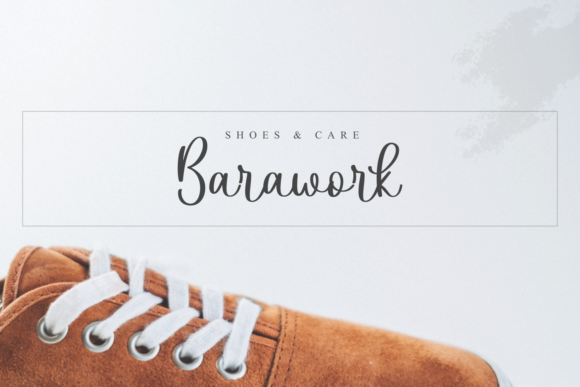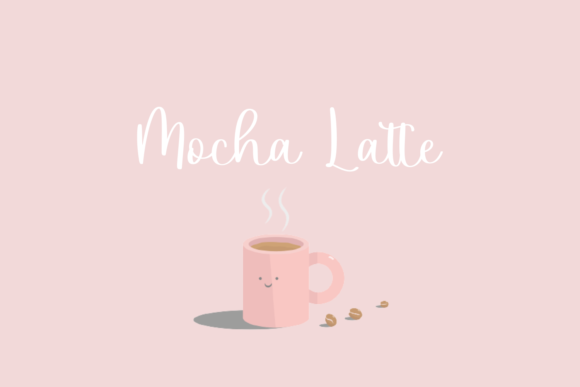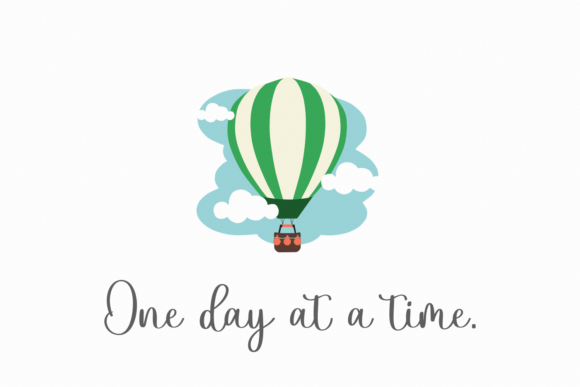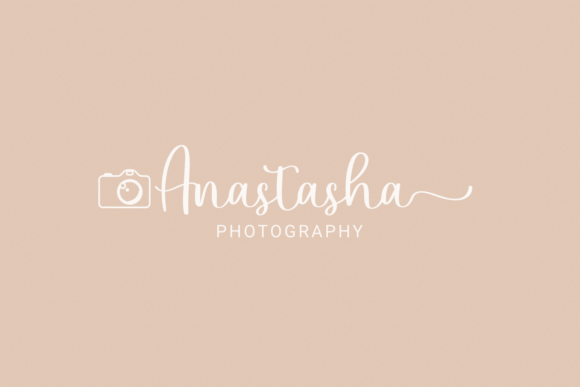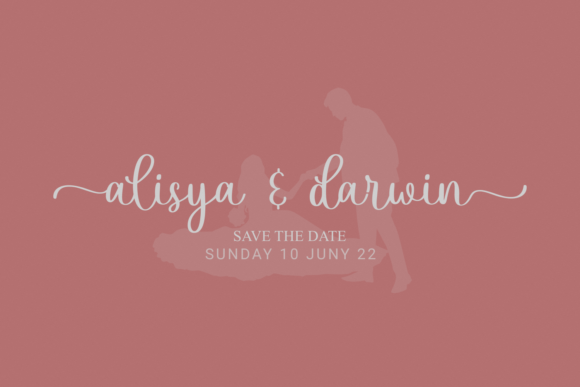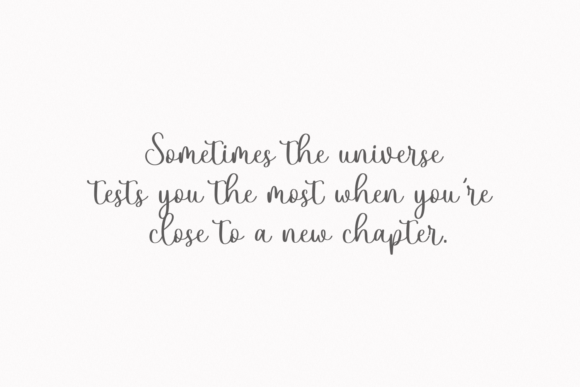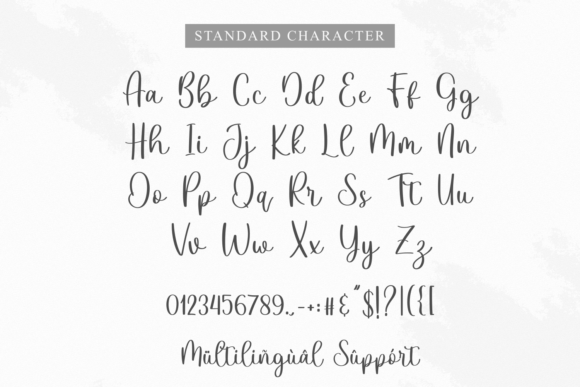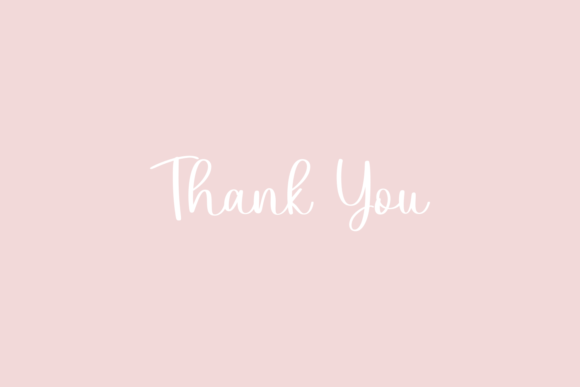
Graphy Font
About Graphy Font
Graphy is a charming and whimsical script font designed to bring sweetness and flow to your projects. With characters that gracefully dance along the baseline, this font infuses a touch of luxury, creating an enchanting and visually appealing experience for any design endeavor.
The sweet and whimsical qualities of Graphy make it an ideal choice for a variety of creative projects. Whether you are working on invitations, branding materials, or any design that requires a flowing script, Graphy adds a delightful and playful touch that captures attention. Its inherent elegance ensures that your text exudes a sense of sophistication while maintaining a sense of whimsy.
The flowing script of Graphy is a key feature that contributes to its unique charm. The characters seamlessly connect, creating a harmonious and fluid rhythm that enhances the overall beauty of the font. This flowing quality adds a dynamic and lively aspect to your text, making it visually engaging and captivating.
Graphy is not just a font; it’s a design tool that elevates your projects with a luxury spark. Whether you are creating invitations that radiate elegance or incorporating it into branding materials for a touch of sophistication, Graphy promises to deliver exceptional and memorable results.
In summary, Graphy is a script font that combines sweetness, whimsy, and a touch of luxury. Allow its characters to dance across your designs, infusing your projects with an enchanting and delightful atmosphere. Add Graphy confidently to your design toolkit, and witness how it transforms your creative endeavors into visually stunning and captivating works of art.